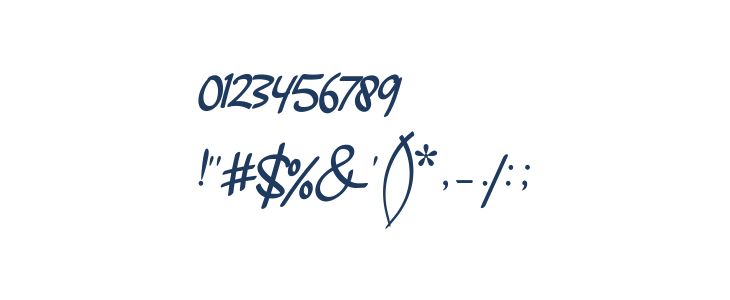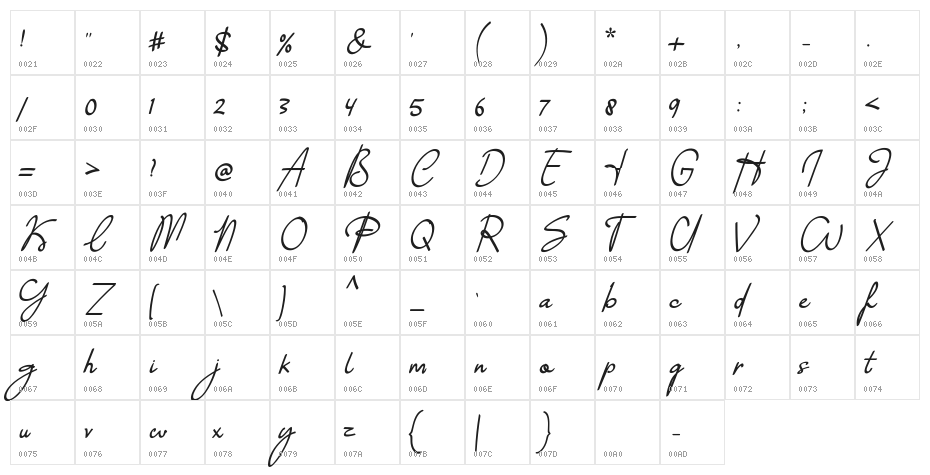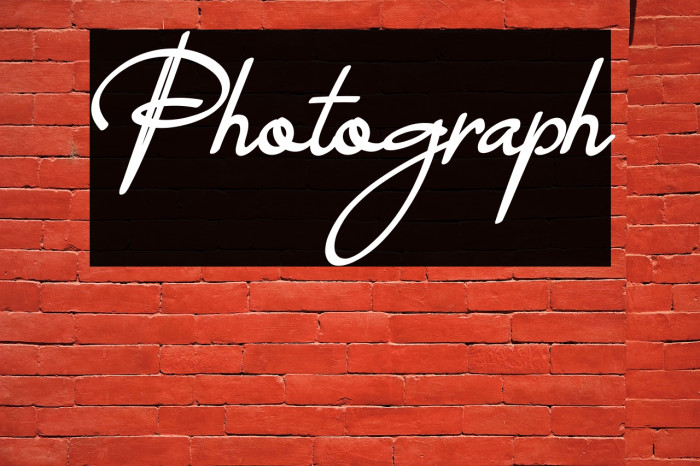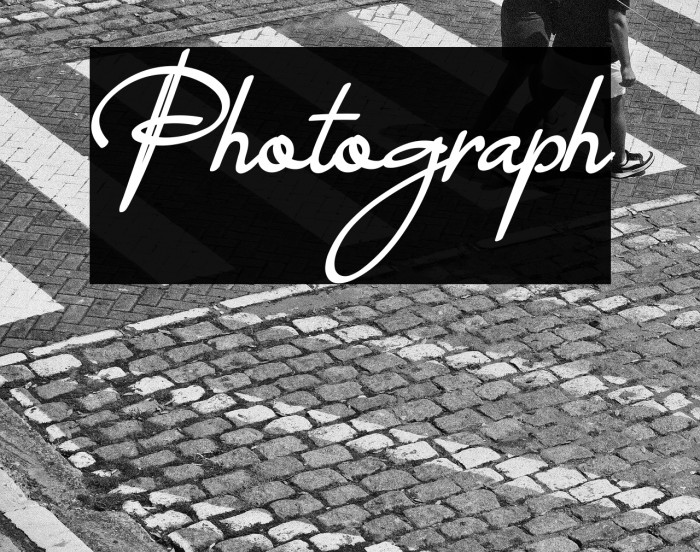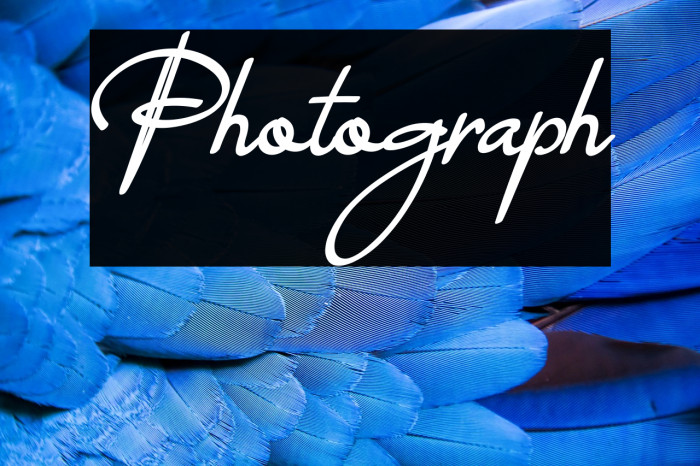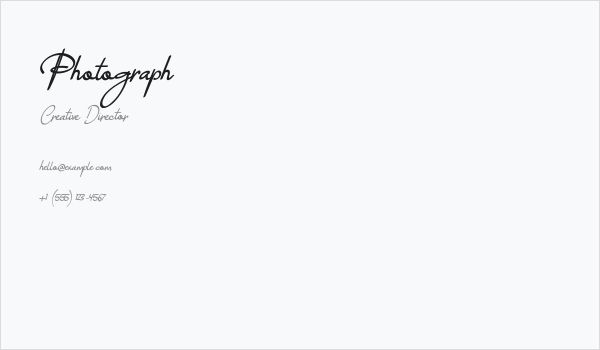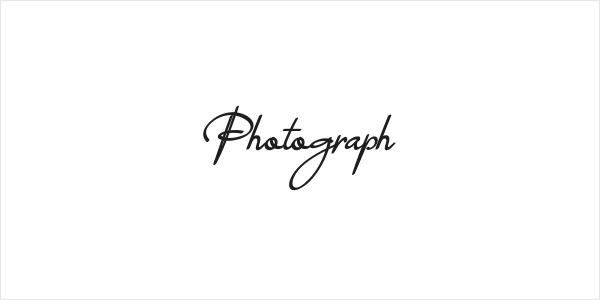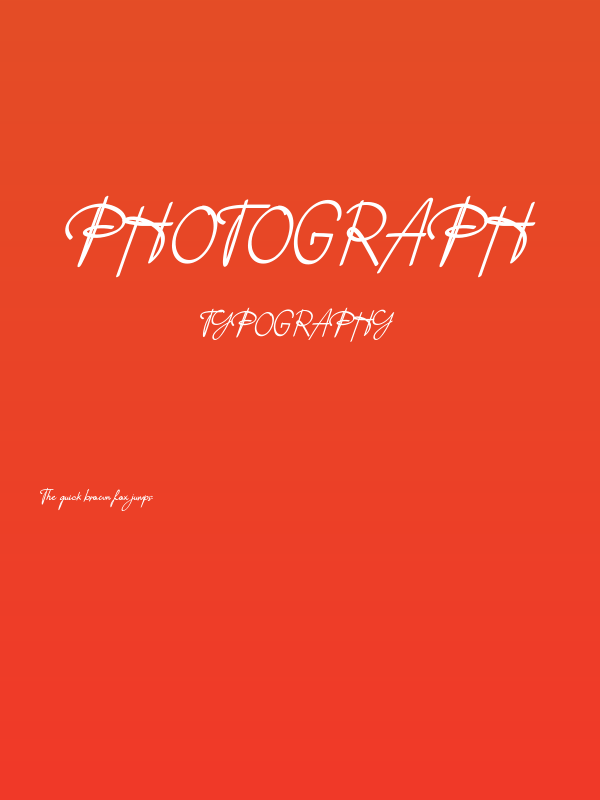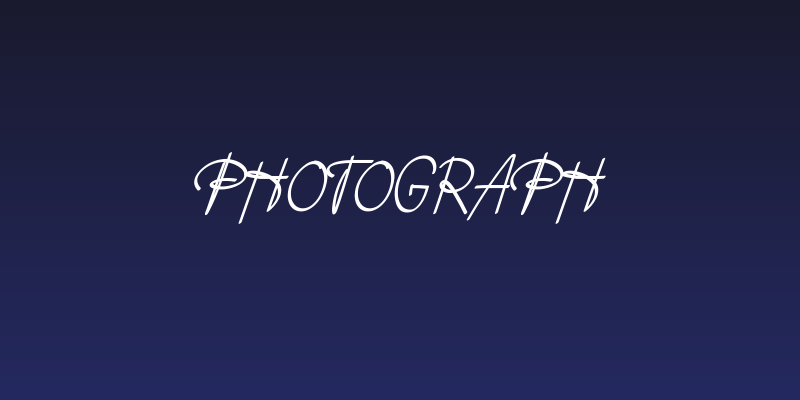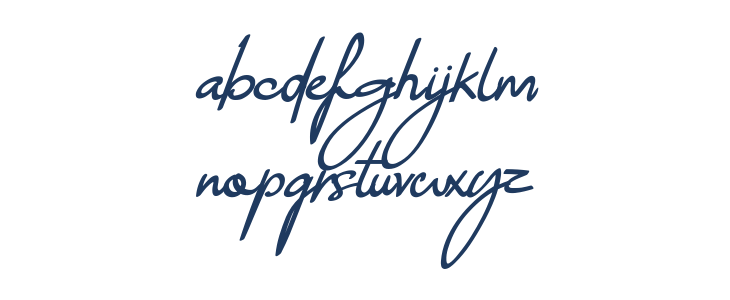
Photograph Font
Photograph Description
This font features an elegant, flowing script style with a handwritten appearance. The uppercase letters are tall and slender, with a slight slant that adds a dynamic feel. The lowercase letters are more compact, maintaining the same slant, and are intricately connected, enhancing the cursive effect. The numerals are consistent with the overall style, featuring similar curves and slants. Special characters are designed to match the script's fluidity, ensuring a cohesive look across all glyphs. The font's overall aesthetic is sophisticated and artistic, making it suitable for creative and decorative applications.
Use CaseLogos, Invitations, Artistic projects
Proposed ProjectsIdeal for wedding invitations, greeting cards, personal branding, and artistic projects.